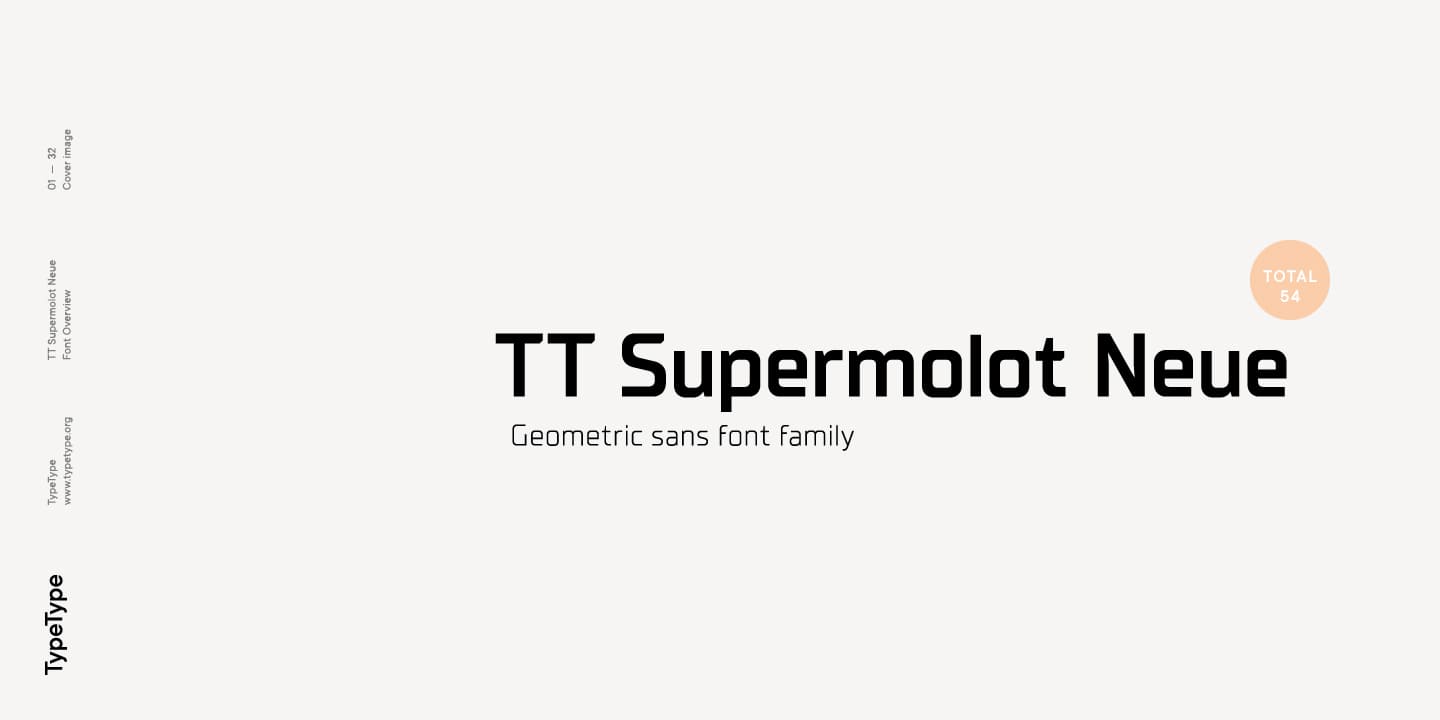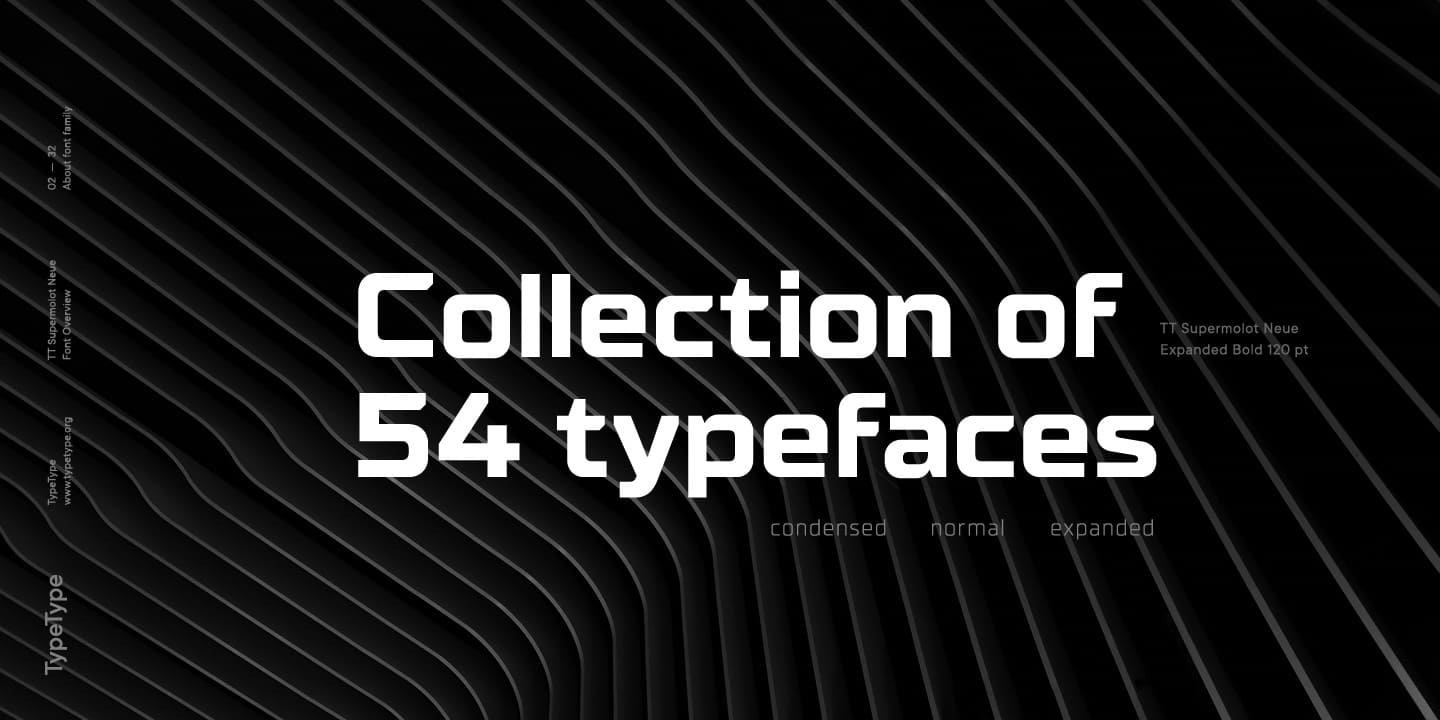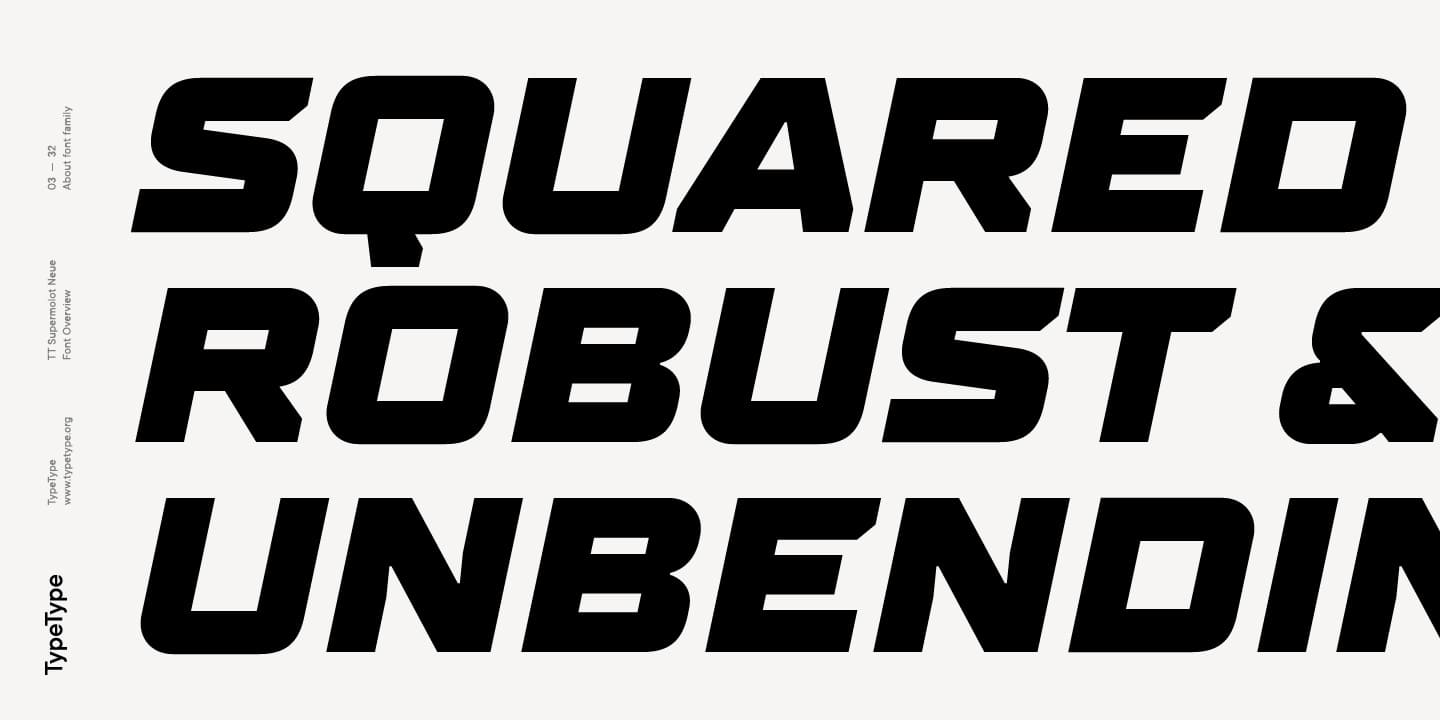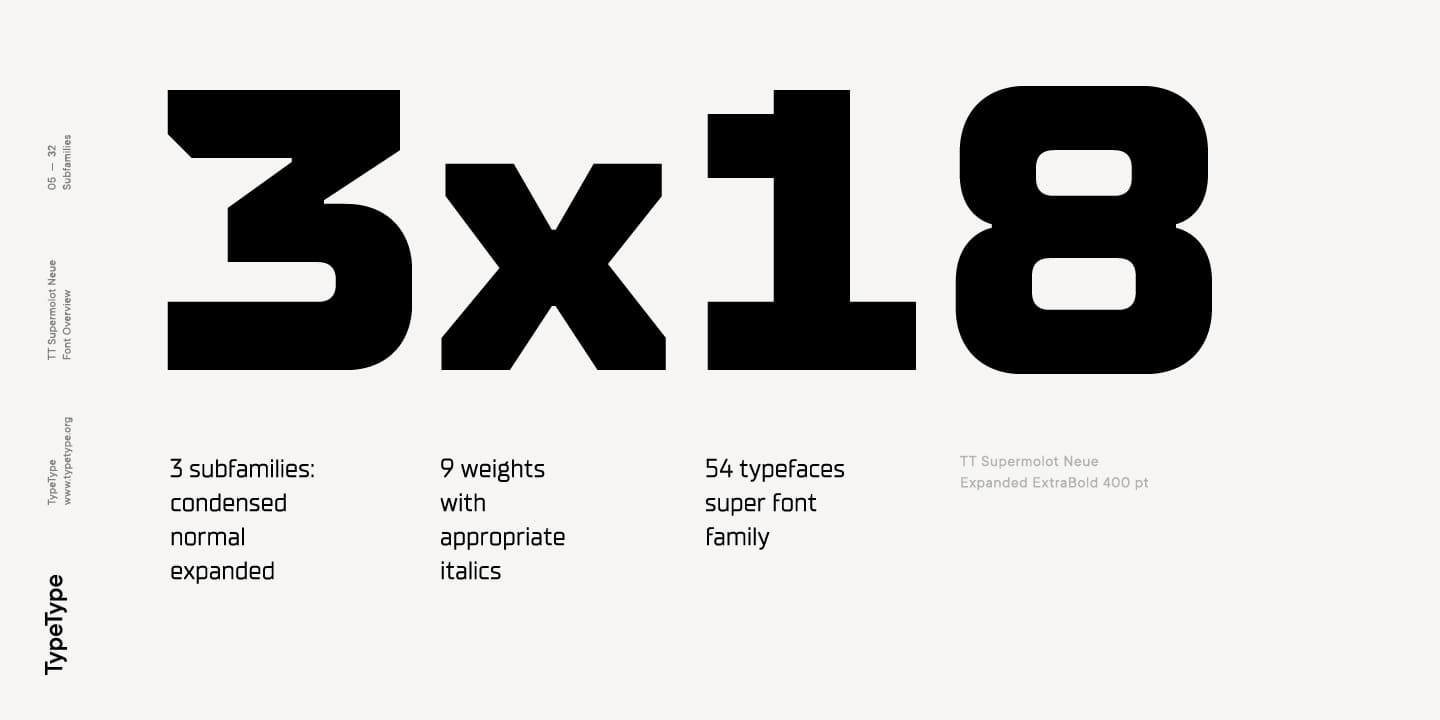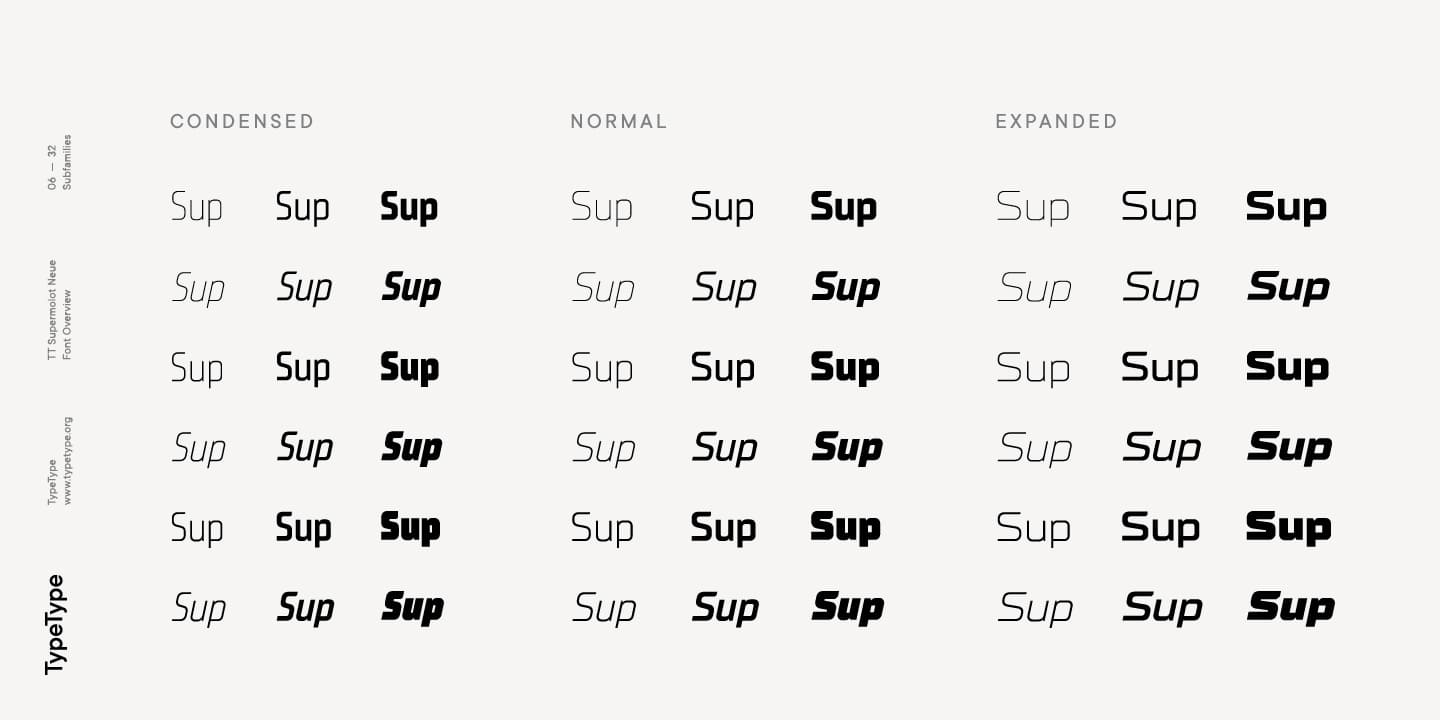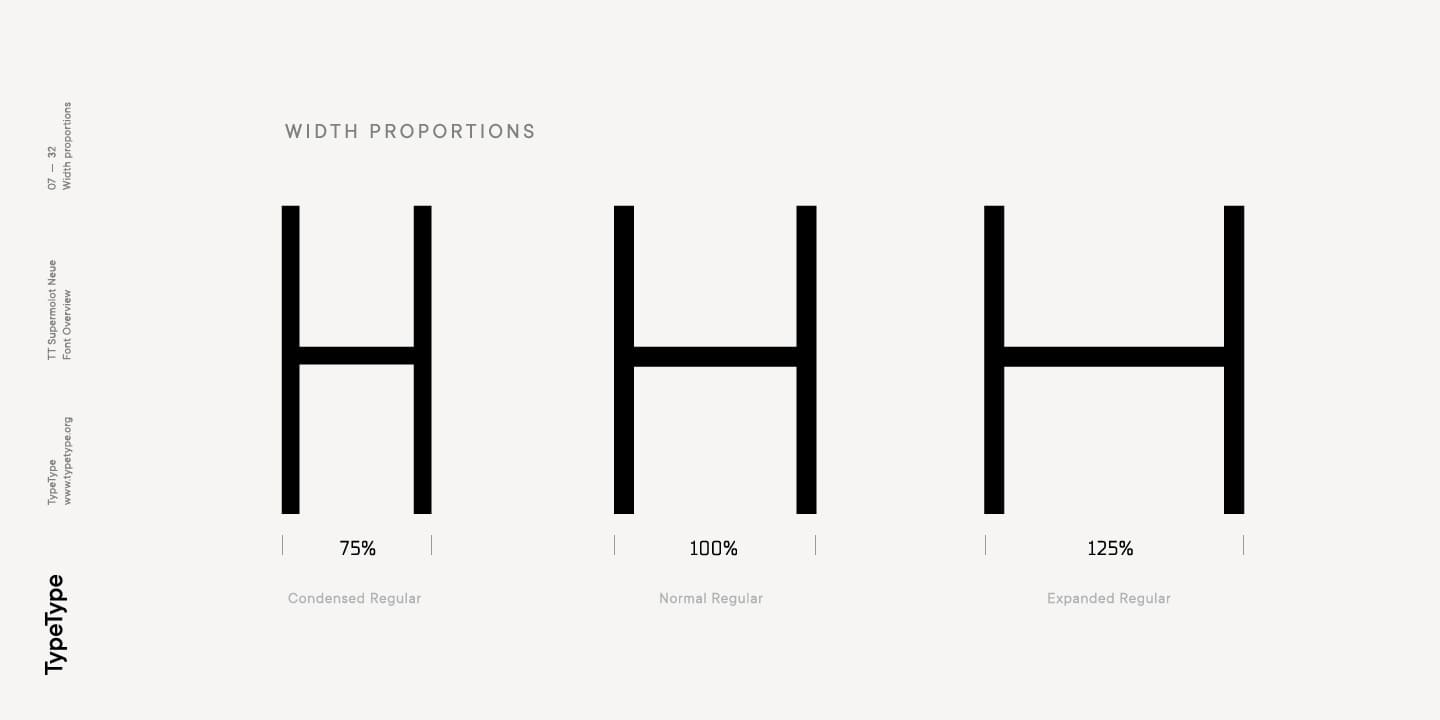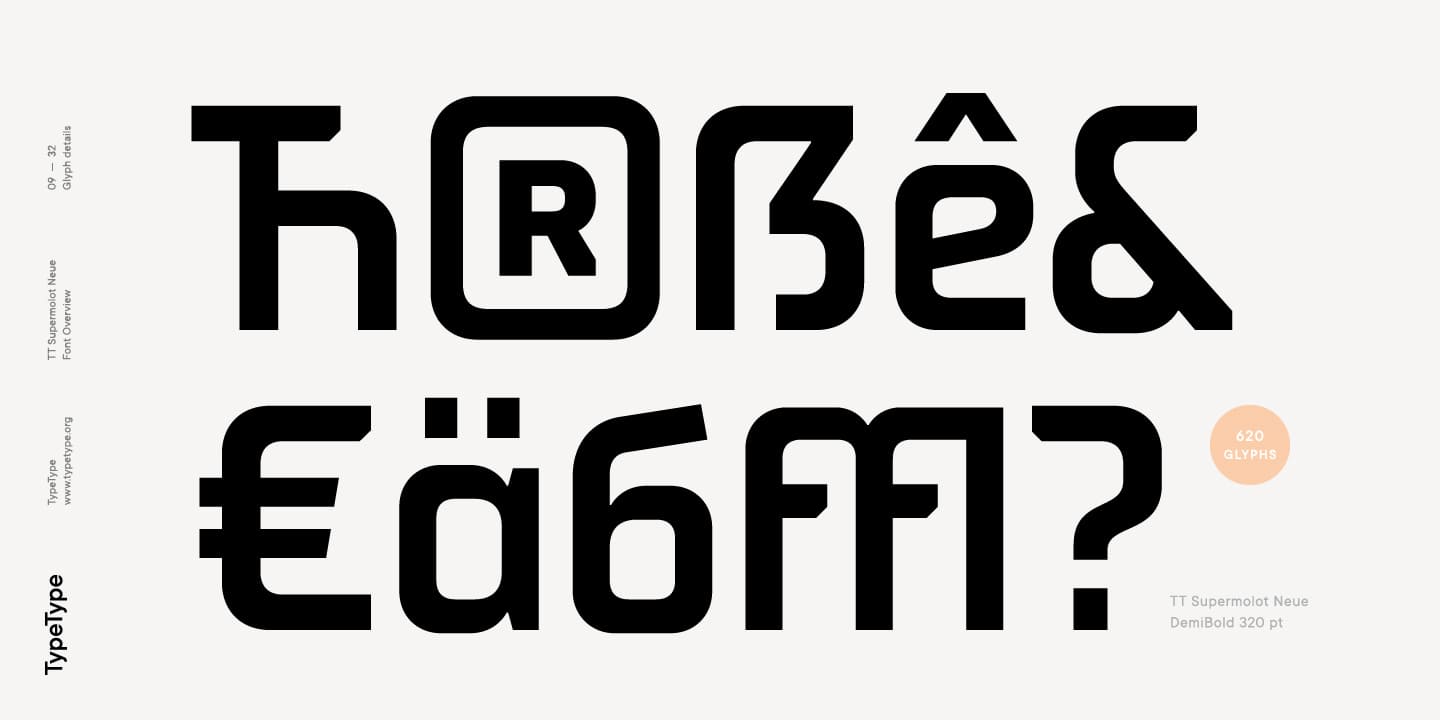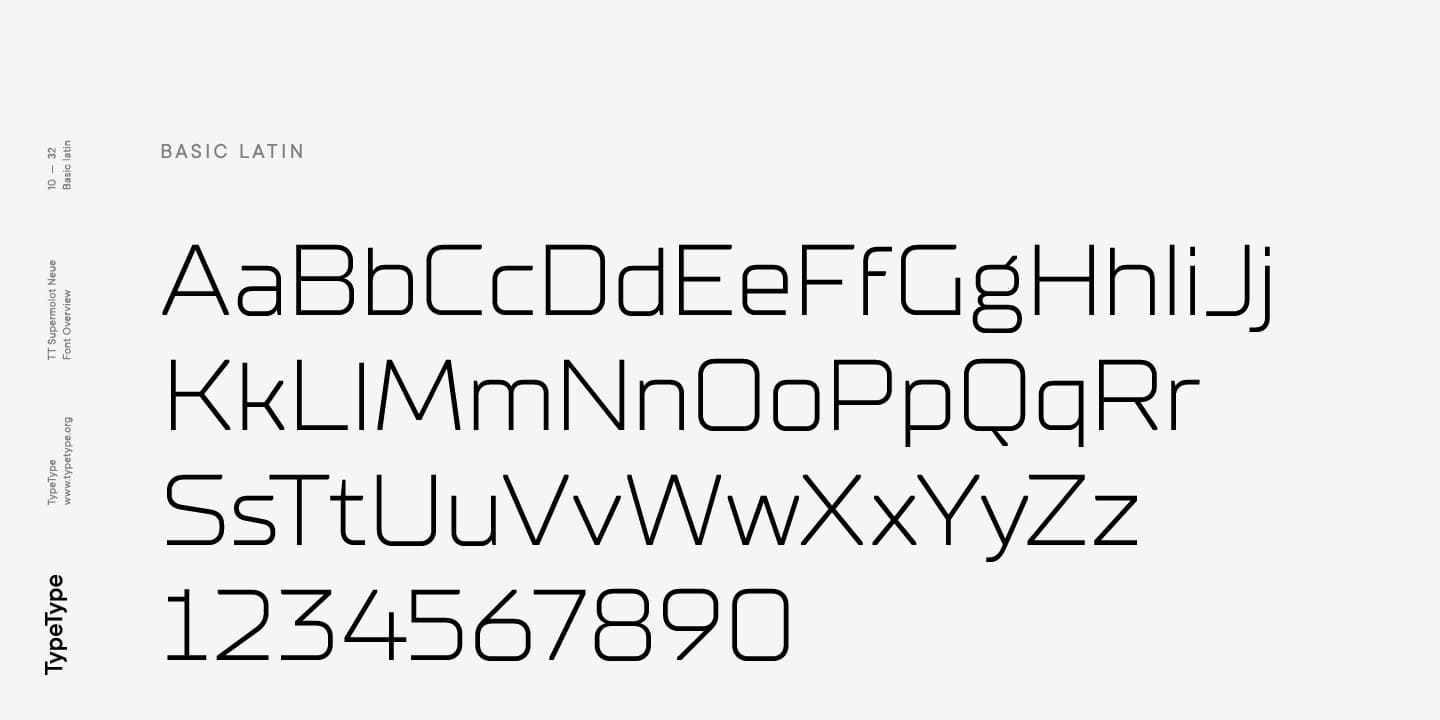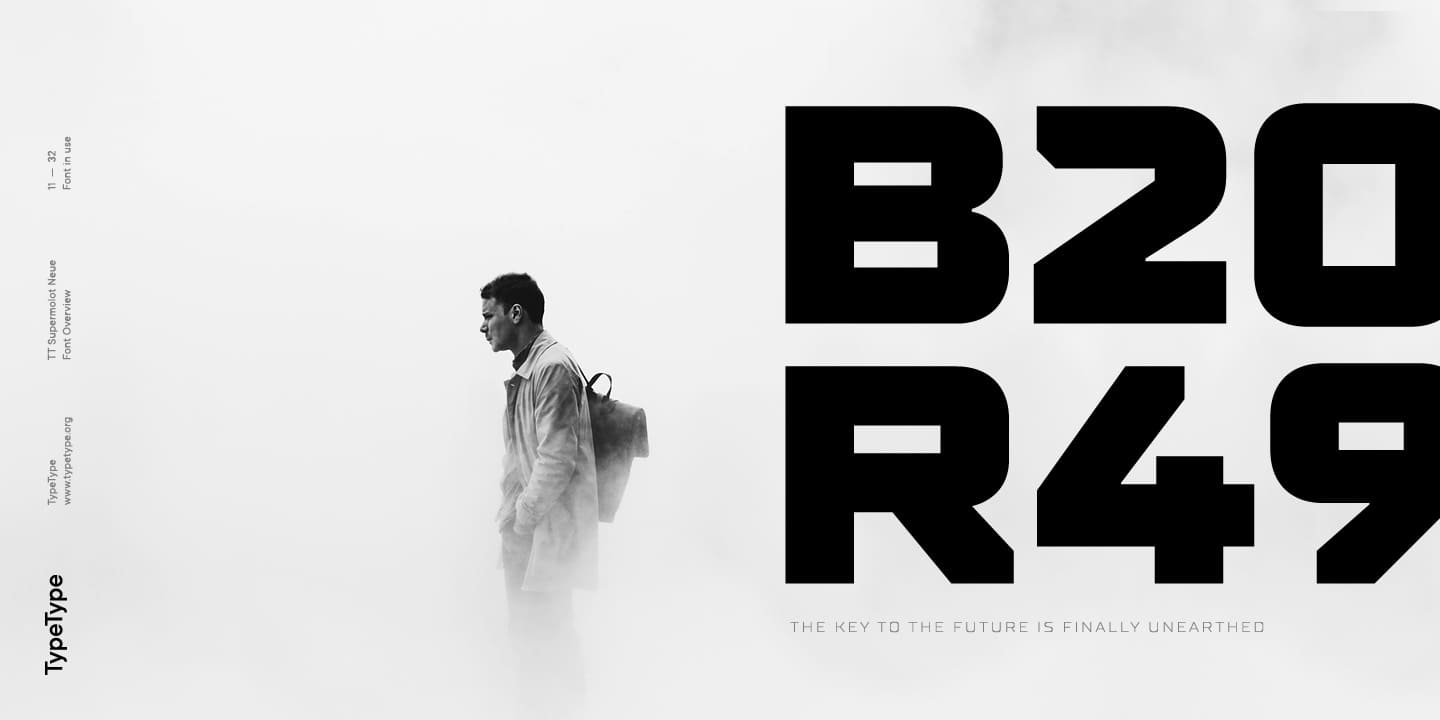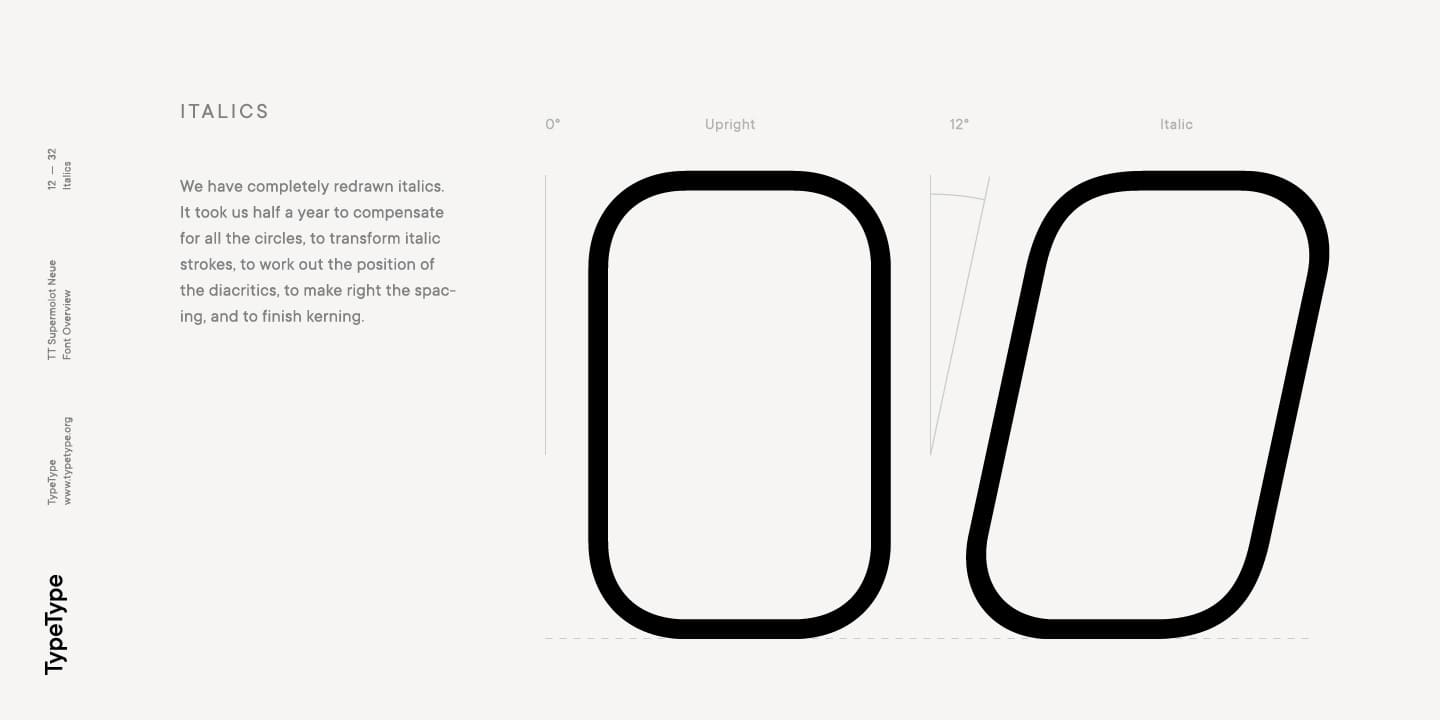
TT Supermolot Neue Complete Family (54 fonts)
First, we have added a completely new subfamily, TT Supermolot Neue Extended. But this is only the tip of the iceberg—in order to achieve visual harmony between the three subfamilies, we completely revised the distribution of widths among them. As a result of this work, the width of the TT Supermolot Neue Normal subfamily became a bit narrower, and the width of the TT Supermolot Neue Condensed subfamily became even narrower than it was in the old version. Secondly, we’ve increased the number of weights. While in the old versions there were only 5 weights, in the new ones there are 9 in each of the subfamilies.
In addition, we gave a facelift to the lowercase and uppercase letters. In TT Supermolot Neue, the design of all controversial grapheme forms was soothed and now the family can also be used in the text set. We have completely redrawn italics. It took us half a year to compensate for all the circles, to transform italic strokes, to work out the position of the diacritics, to make right the spacing, and to finish kerning.
Following a good tradition, in the TT Supermolot Neue extensive support for useful OpenType features was added, and hinting was also improved. If we talk about visual features, we recommend paying closer attention to two stylistic sets: the first set (ss01) is designed to make the typeface more humanist, and when you turn on the second set (ss02), the typeface becomes even more technological. In addition, the typeface has more than 26 items of standard and discretionary ligatures. We also have not forgotten about the figures and we added a set of old-style figures to the standard version. In addition, the typeface has case, ordn, frac, sups, sinf, numr, dnom, onum, tnum, lnum, pnum, calt, liga, dlig, salt, ss01, ss02.
Baltic, Central/Eastern Europe, Cyrillic, Romanian, Turkish, Western Europe
Old-style Digits, Ligatures, Discretionary Ligatures, Alternates, Contextual Alternates, Fractions, Superscript, Subscript
(Thin, Extra Light, Light, Regular, Medium, Demi Bold, Bold, Extra Bold, Black + Italics)